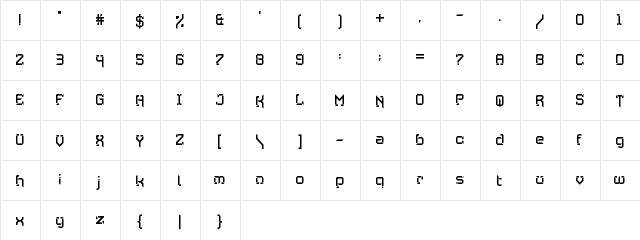
Jawbreaker Regular
| Designer | Andrew McCluskey |
Design Context for Jawbreaker Typeface
Jawbreaker offers clean, dependable letterforms without strong stylistic allegiance, making it a practical choice for designers who need flexibility.